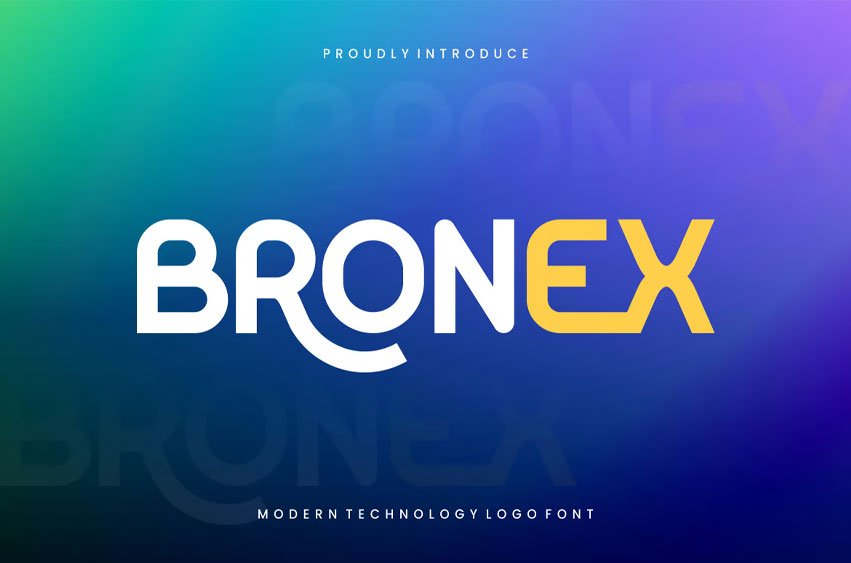
Bronex Font is ideal for badges, labels, logos, branding, magazines, posters, and more. Our fonts include Uppercase and Lowercase letters, Numerals, Punctuation, Multilingual support, and OpenType features. For amazing designs, you can mix them with other fonts as complements.